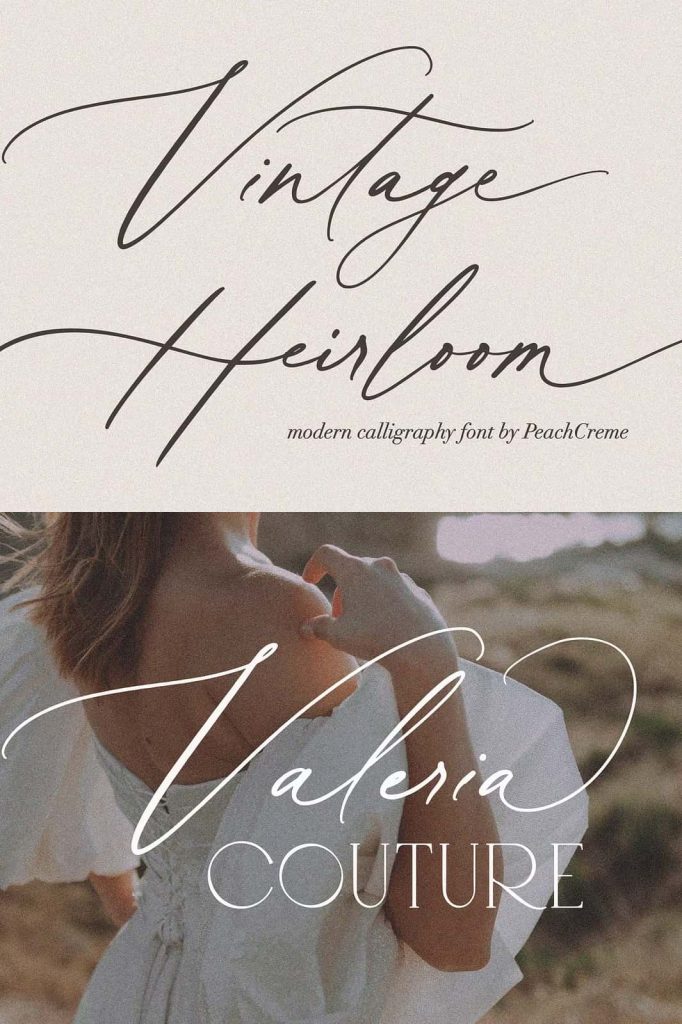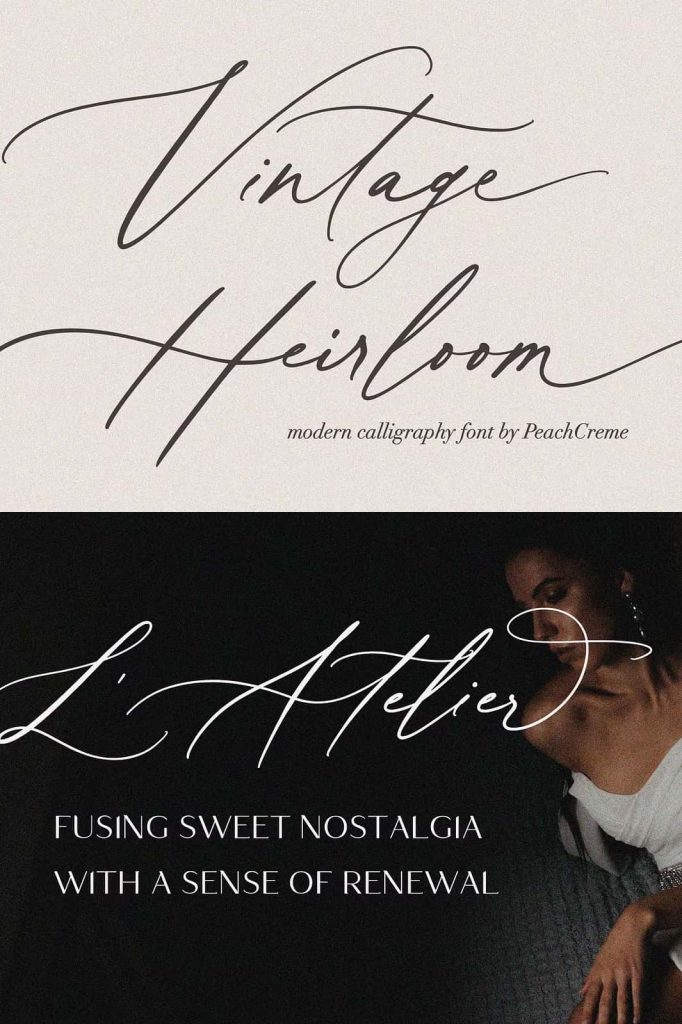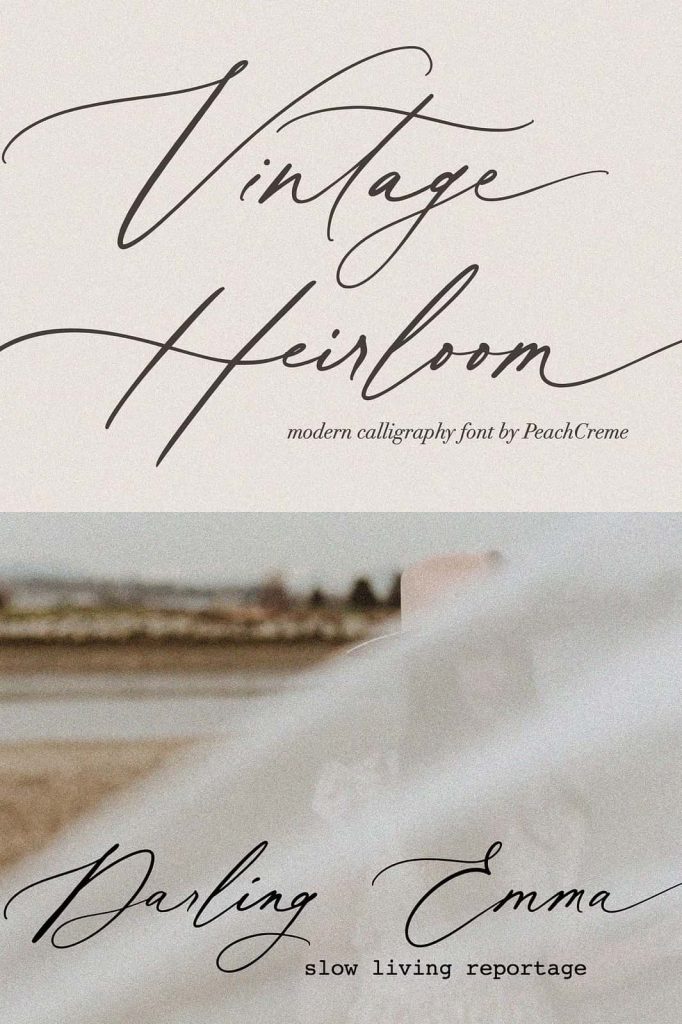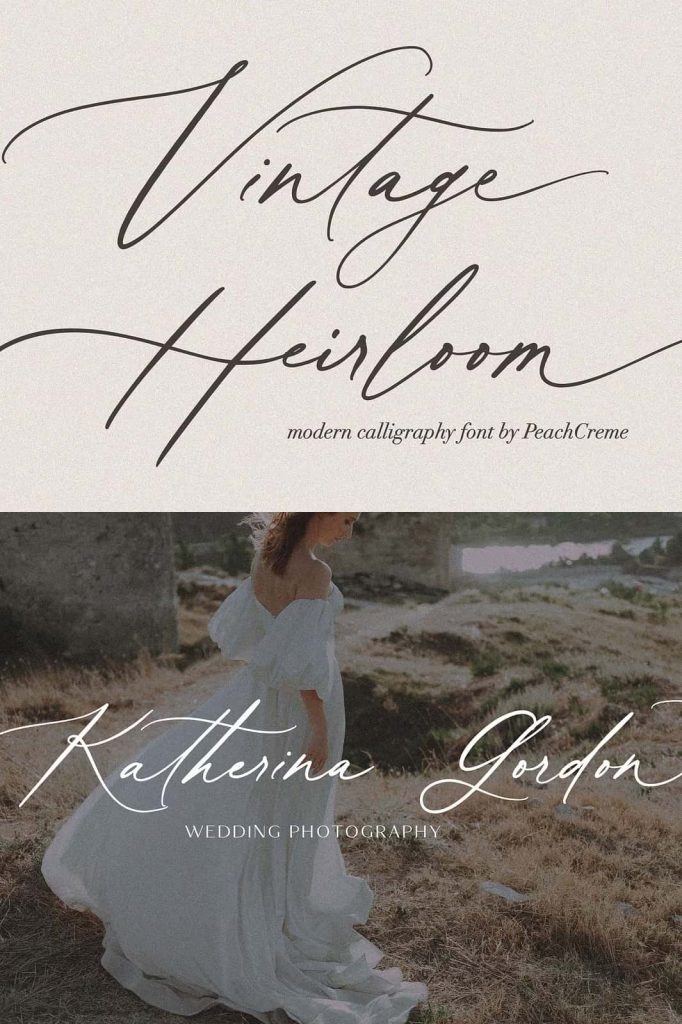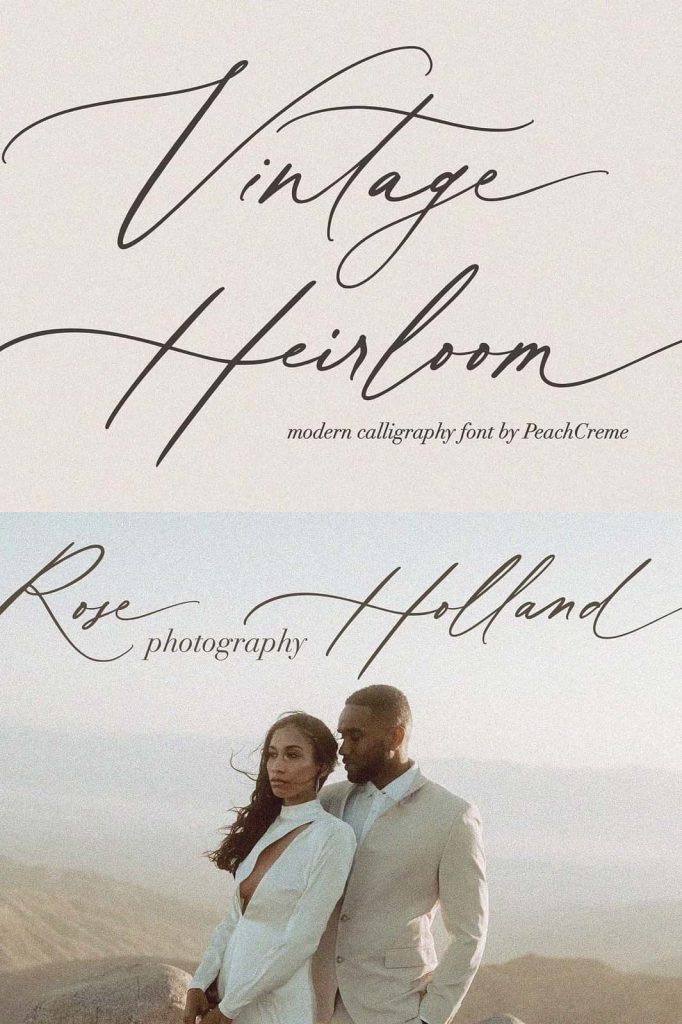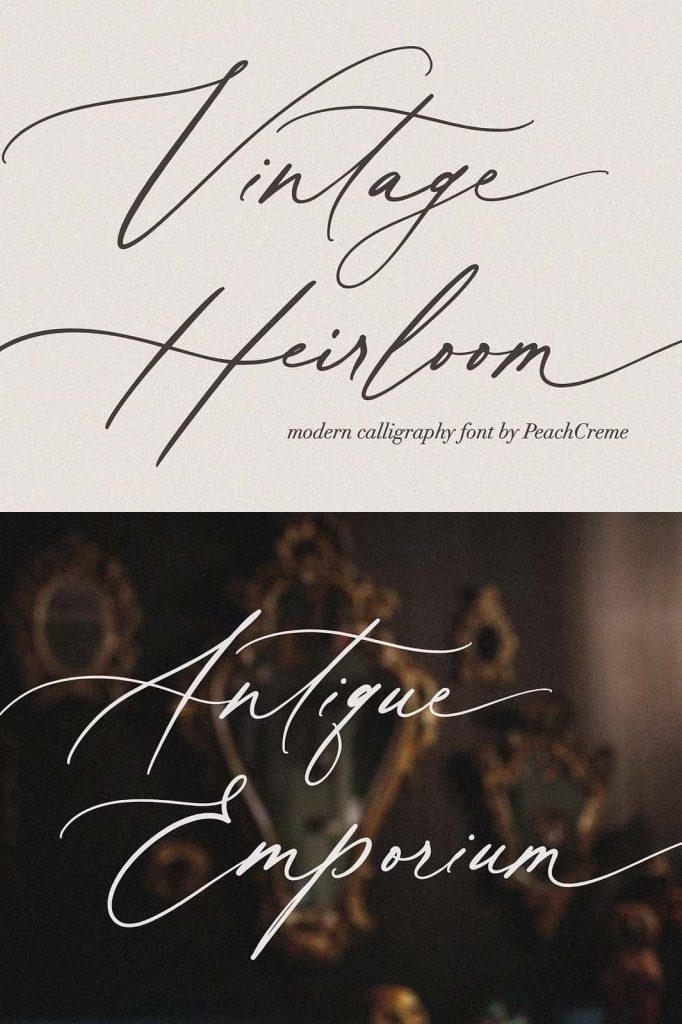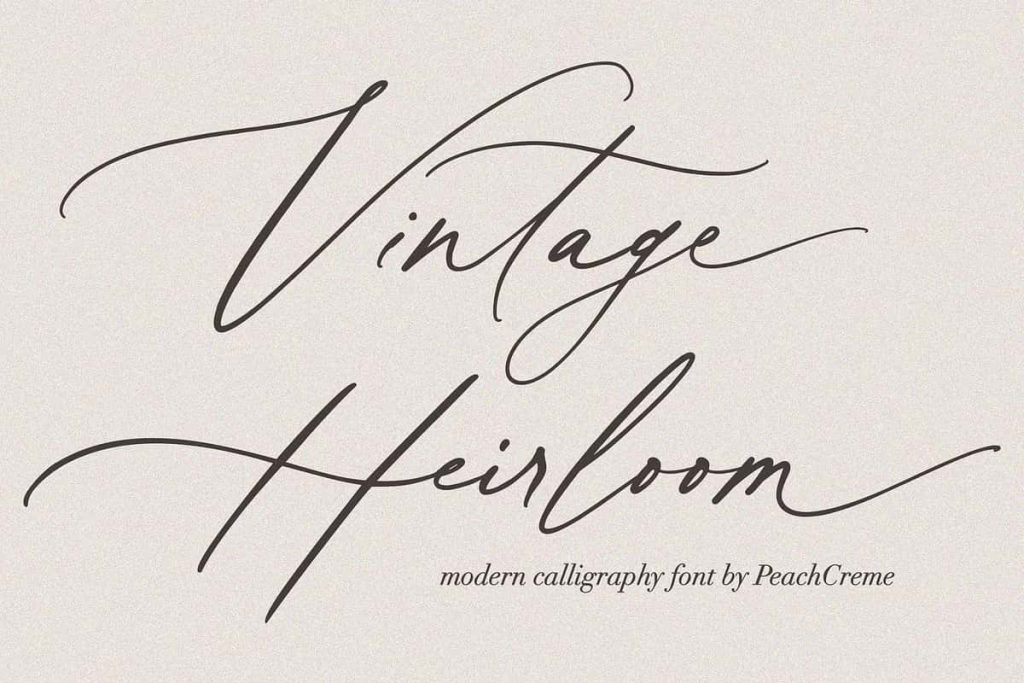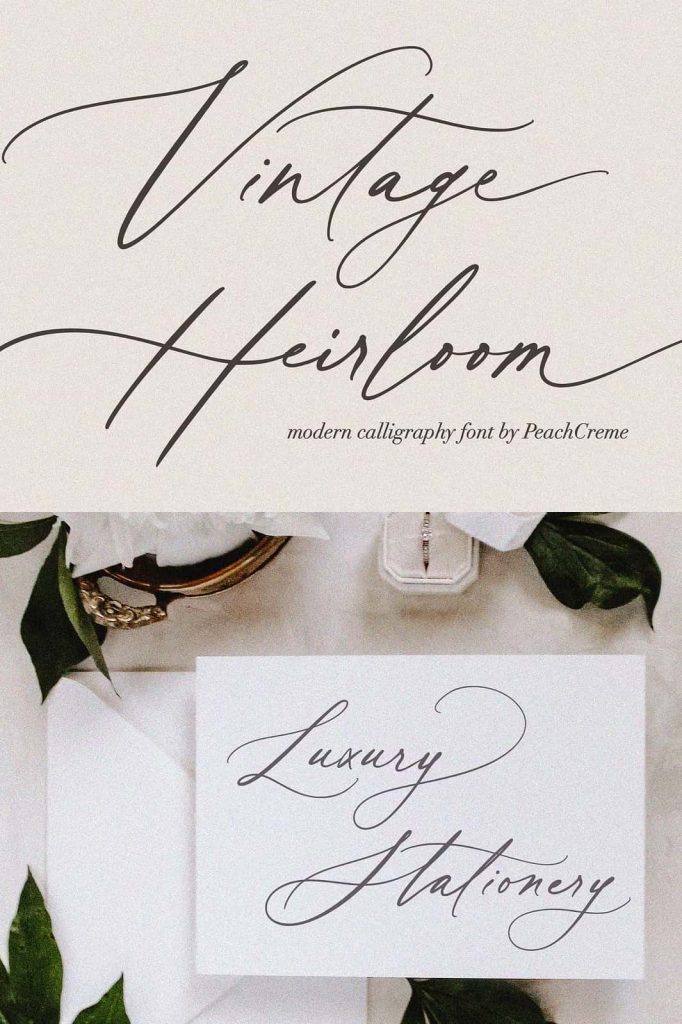
Introducing our new gorgeous calligraphy font, Vintage Heirloom! A beautiful script for those who wish to enhance their designs with elegance and style.